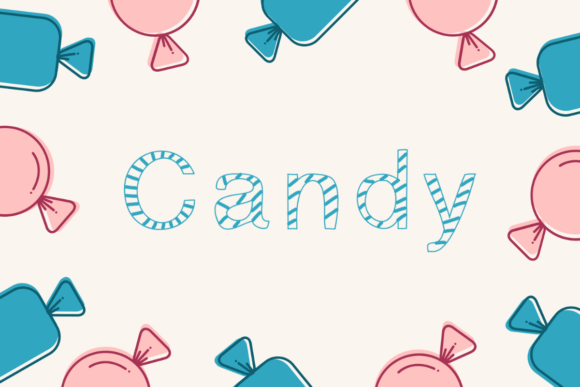
The Sweetest Font in Town: A Comprehensive Guide to Candy Font
I’ll never forget the time I was working on a children’s book project, and I just couldn’t find the right font to match the playful tone of the story. The client wanted something that would appeal to kids, but still look professional and polished. That’s when I stumbled upon Candy Font, and it was love at first sight! 💕
With its adorable and straightforward design, Candy Font has become a staple in my design toolkit. In this article, I’ll share with you why I love this font, its strengths and weaknesses, and provide a practical guide on how to use it in different design platforms.
An Honest Review of Candy Font
What I Love About Candy Font ✨
• ✅ Playful character shapes: Candy Font has a unique and whimsical feel to it, making it perfect for projects that require a touch of fun and personality.
• ✅ Charming simplicity: The font’s clean and simple design makes it easy to read and versatile for various design applications.
• ✅ Lighthearted vibe: Candy Font is ideal for projects that require a carefree and youthful tone, such as greeting cards, children’s books, and social media graphics.
While Candy Font is an excellent choice for many projects, it’s not without its limitations. ⚠️ One thing to note is that the font may not be suitable for body text or long-form content, as it can be a bit too playful and attention-grabbing.
Additionally, some users may find that the font’s simplicity can make it look a bit too similar to other sans-serif fonts. However, this can also be seen as a strength, as it allows the font to blend in seamlessly with other design elements.
The Backstory of Candy Font
Candy Font was designed with the intention of creating a playful and whimsical font that would bring joy to design projects. The designer wanted to create a font that was both simple and charming, making it perfect for a variety of applications.
Font Name Candy Font
Author fonty88
Q: What is the best use for Candy Font?
A: Candy Font is perfect for projects that require a playful and lighthearted tone, such as greeting cards, children’s books, and social media graphics.